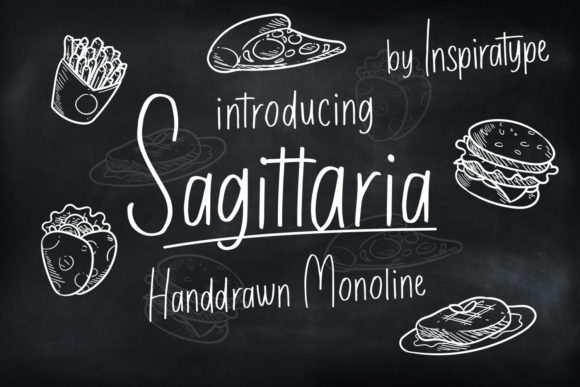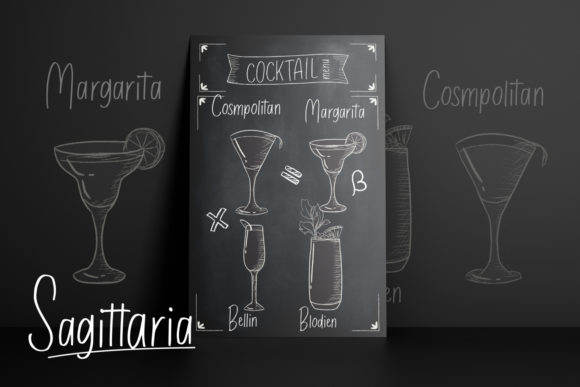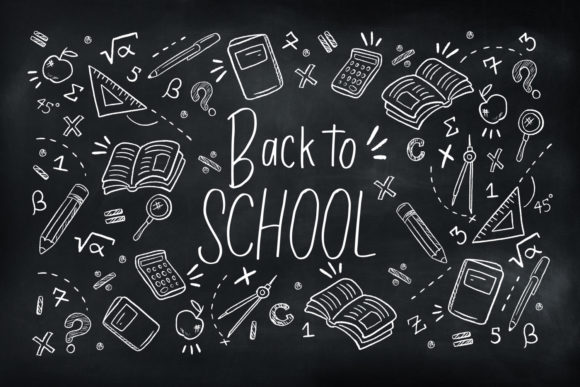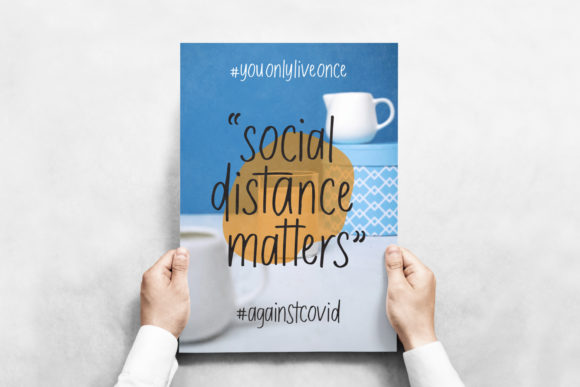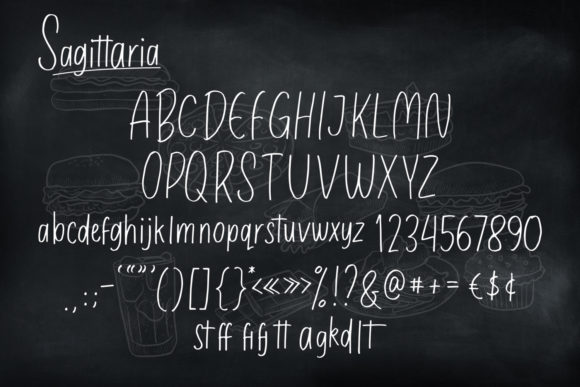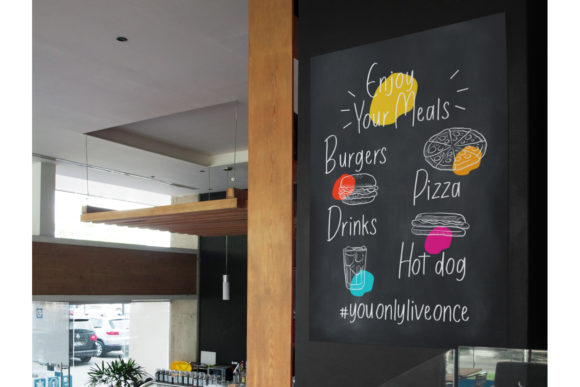
Sagittaria Font
About Sagittaria Font
Sagittaria is inspired by classic typography and brings its own unique style to any design project. Clean and a little bit quirky, this font is the perfect fit for all of your logos, branding, social media, and crafty DIY projects.